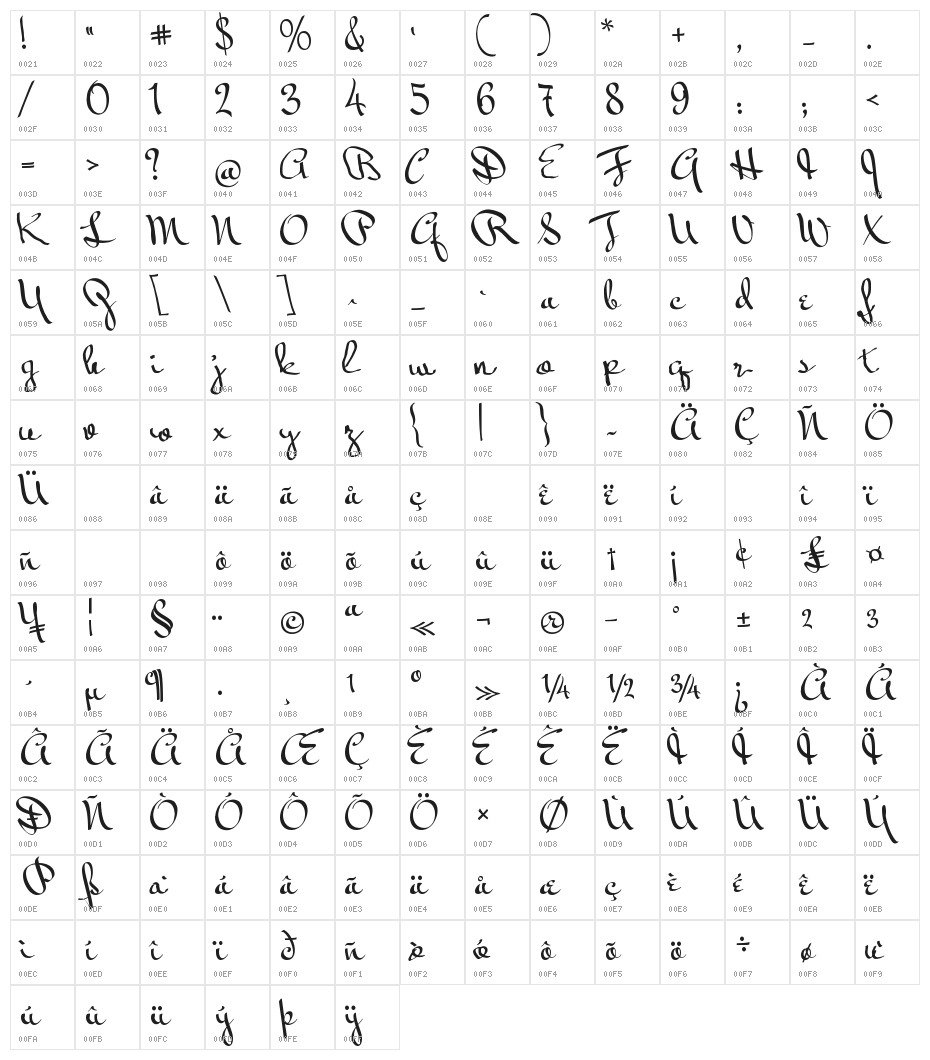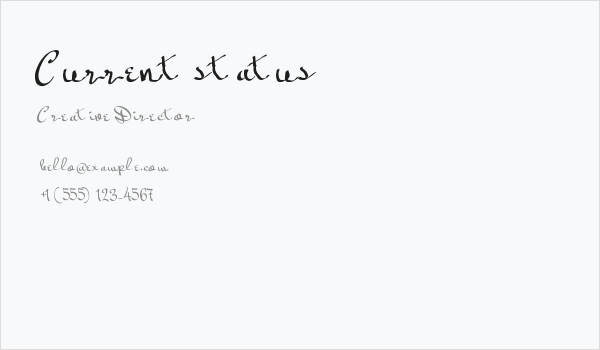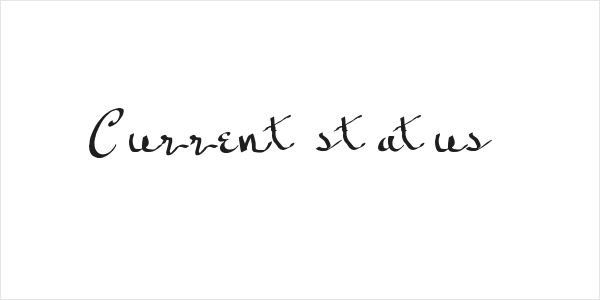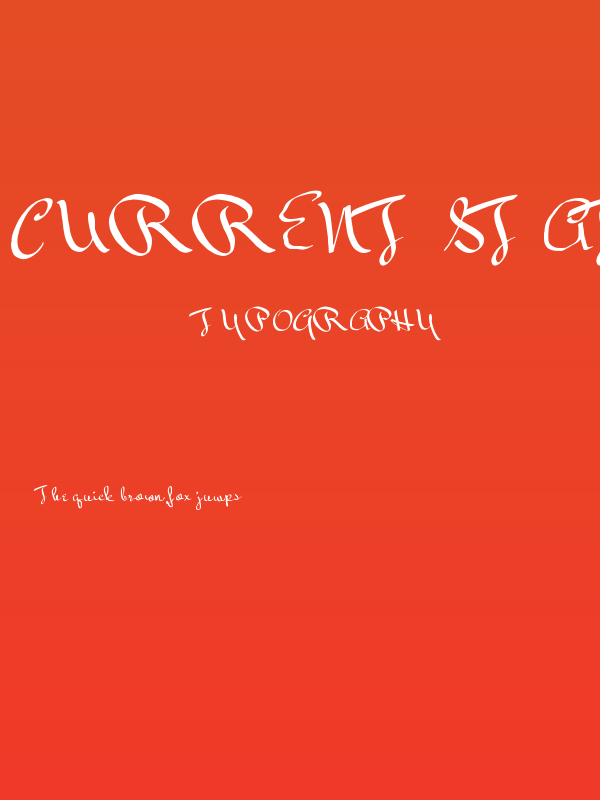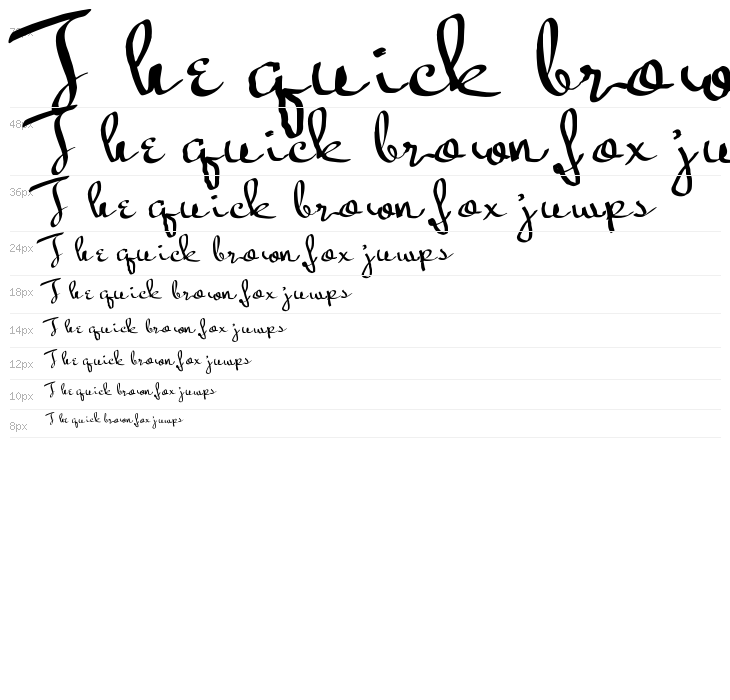
Current status Font
Current status Description
This font exhibits a lively and expressive handwritten style, characterized by its fluid and dynamic strokes. The uppercase letters are bold and slightly slanted, giving a sense of movement and energy. The lowercase letters maintain a consistent flow, with some letters featuring playful loops and curls. The numerals are bold and maintain the same energetic style, making them stand out. Special characters are creatively designed, adding to the overall whimsical feel of the font. The font's unique style makes it suitable for projects that require a personal and artistic touch.
| Proposed Projects | Ideal for greeting cards, invitations, artistic posters, and branding that requires a personal touch. |